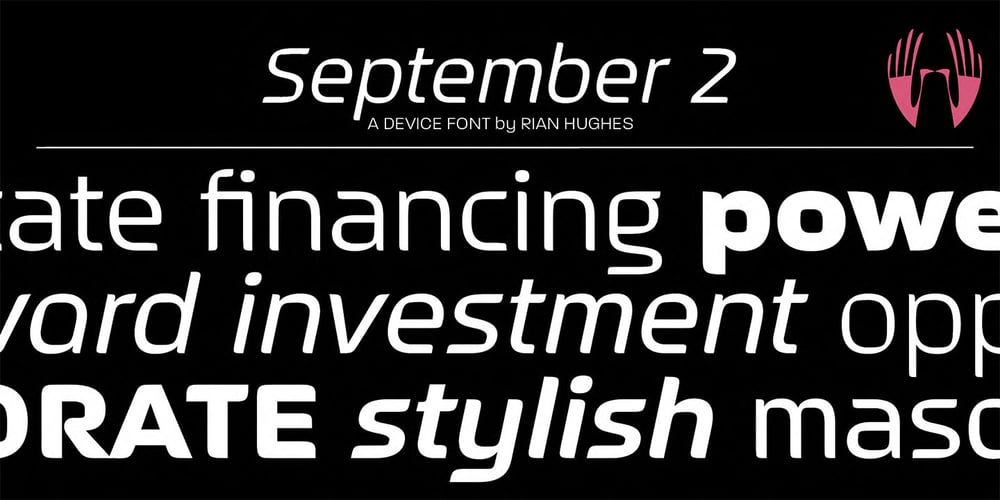
Sep-02 font
September 2 Font Family was designed by Rian Hughes and published by Device. September 2 contains 18 styles and family package options. An update and extension to the popular September family.An authoritative and robust design for headline and shorter texts in the lighter weights, this modern family has all the necessary weight and presence for corporate and academic use, company brochures, branding, sport packaging, television idents, posters, packaging and film titles.This all-new version includes:Six extra weights in both upright and italic, bringing the full family to nine weightsExtended character setOld style numbersNumerators and denominatorsSuperior and inferior numbersAlternate glyphs